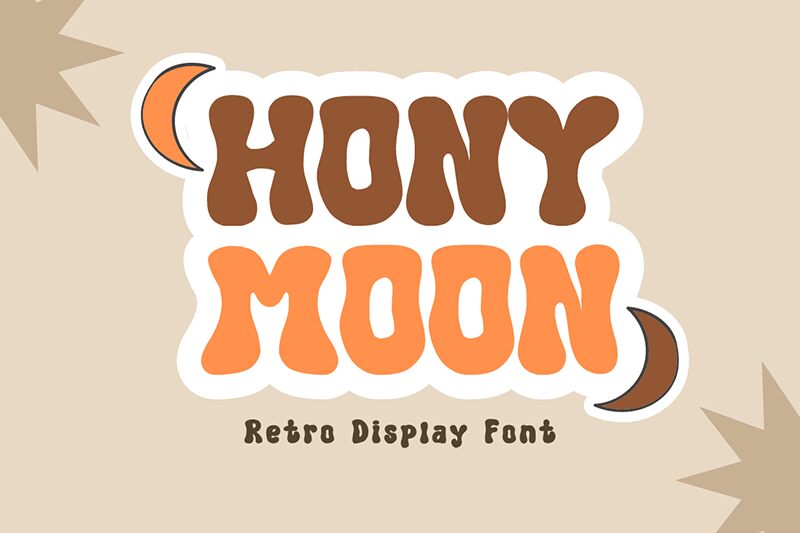
Hony Moon font is Muhammad Afif’s latest creative project curated and published under the Minimalisteyes label. Categorized as a groovy display typeface, Hony Moon free font presents healthy thick strokes along beautiful variation for maximum visual interest and mood evocation.